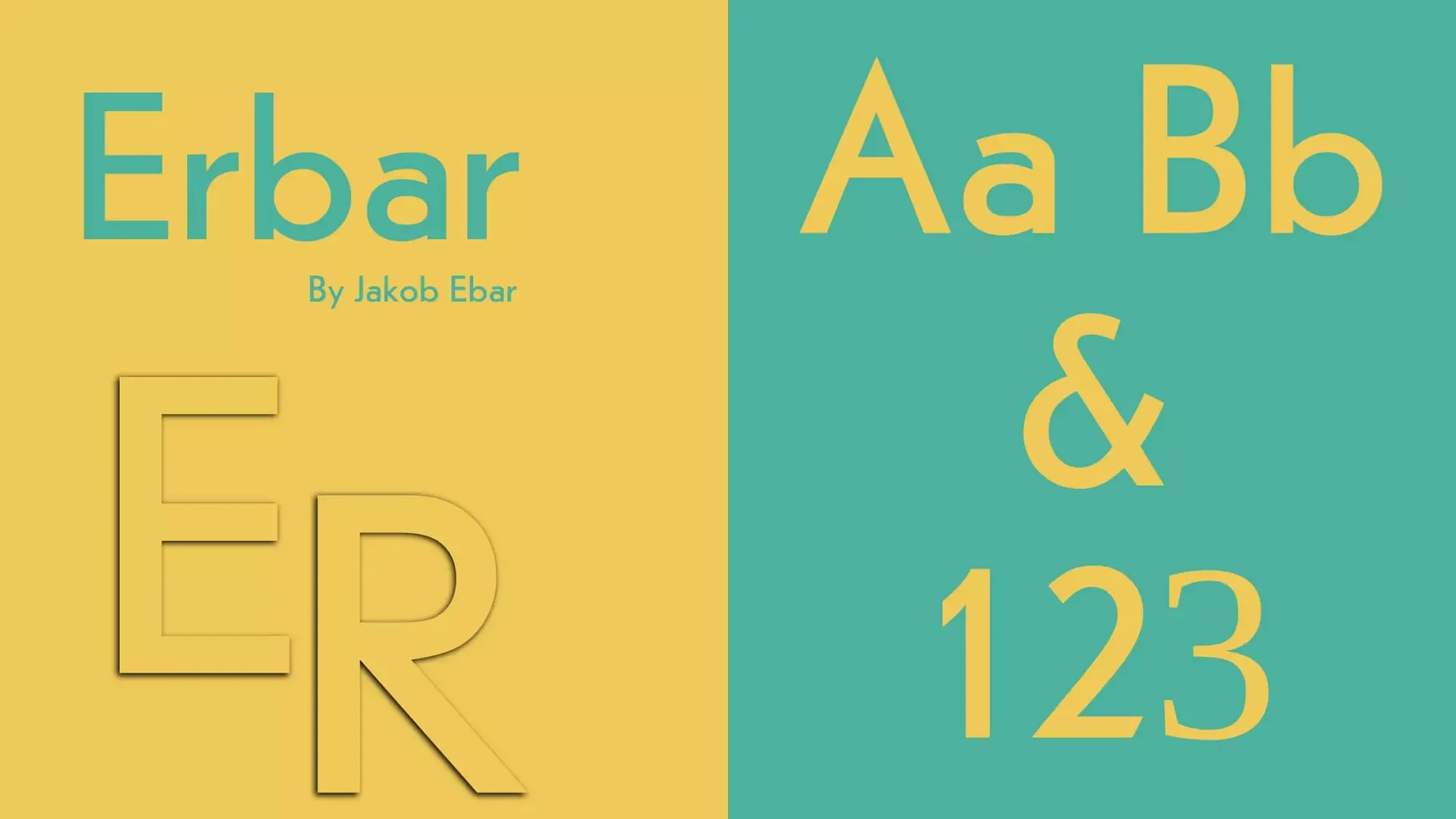
About Erbar Font
Erbar or Erbar-Grotesk is a sans serif typeface with a geometric design. It is among the very first designs of this kind to be made available as a type. Designer Jakob Ebar’s intention was to create a type that was free of individual characteristics and have perfectly accessible letter forms, and be a solely typographic design. He concluded that this was only possible in the event that the typographic form was created from a basic element called the circle. Erbar-Grotesk was created in stages. Erbar stated that he first sketched the design in 1914, but had been not able to work on the design due to war. The first Erbar version Erbar was published in 1926 following Erbar’s “Phosphor” titling capitals of 1922, which are very identical in style. Erbar font download is available here.
Erbar’s success prompted the creation of numerous new geometric sans-serif fonts from rival foundries, including Futura, Metro, Vogue, Spartan and Twentieth Century among other brands. If you study the Erbar weights with a lot of attention, you will be able to see the commitment of the designer to the font. I can assure you that the sans-serif font will assist you in creating stunning designs that captivate and delight your clients and customers while at the same time.
Usage Of Erbar font
We suggest this typeface sans serif for branding and logos invitations, quotes and invitations posters, blog headers advertising, and body content, in addition to other things. The majority of the time this Font is perfect for magazine layouts and titles. The Font is also suitable for any kind of billboard. It’s a contemporary and fashionable design that is able to create an individual experience.
WHAT TYPE OF FONT IS Erbar?
Erbar or Erbar-Grotesk is a sans serif typeface with a geometric design.